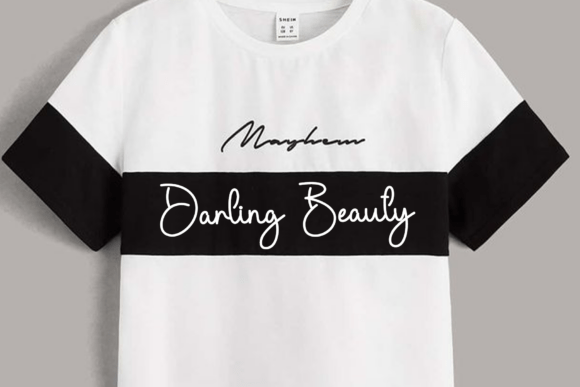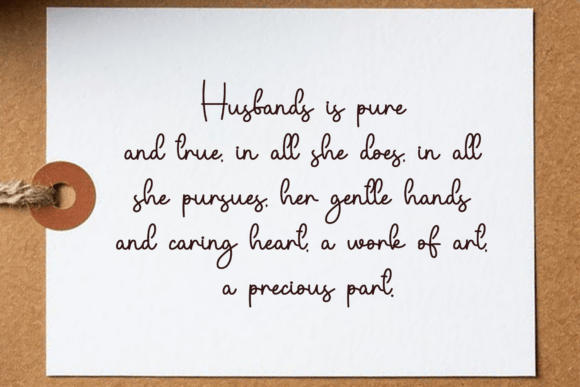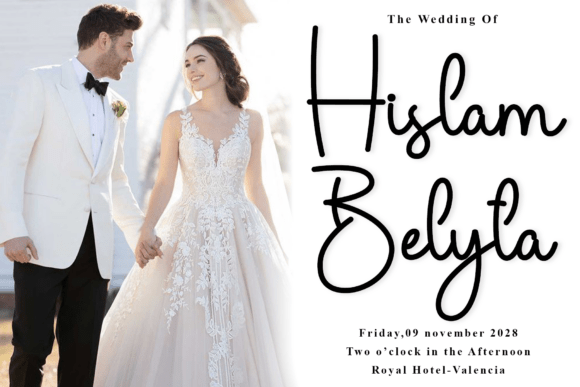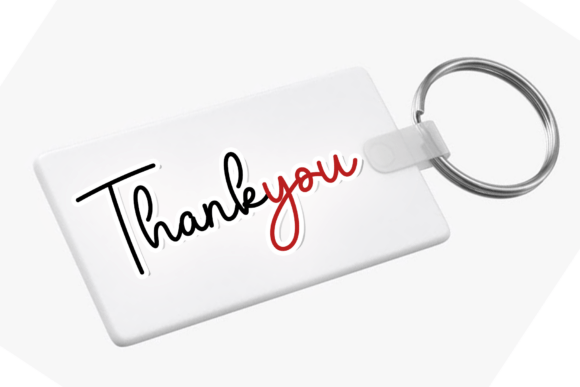
Biscuits Dreams Font: The Perfect Choice for Designers and Crafters
In the world of typography, fonts play a crucial role in conveying messages, expressing emotions, and creating visual identities. For designers and crafters, finding the right font can make all the difference in bringing their creative projects to life. If you’re on the hunt for a font that exudes elegance, whimsy, and a touch of nostalgia, look no further than Biscuits Dreams Font.
What is Biscuits Dreams Font?
Biscuits Dreams is a lovely and timeless handwritten font that has captured the hearts of designers and crafters alike. This beautiful font is characterized by its unique and beautiful touch, which adds a personal and humanizing element to any design. Whether you’re creating eye-catching logos, branding materials, or inspirational quotes, Biscuits Dreams Font is the perfect choice.
Key Features of Biscuits Dreams Font
- Handwritten Elegance: Biscuits Dreams Font boasts a beautiful, handwritten aesthetic that adds a touch of warmth and personality to any design.
- Unique Letterforms: Every letter in the Biscuits Dreams Font has a distinct and beautiful touch, making it perfect for creating one-of-a-kind designs.
- Timeless Appeal: This font’s classic and elegant feel ensures that it will remain a popular choice for years to come.
- Versatility: Biscuits Dreams Font can be used for a wide range of design projects, from logos and branding to quotes and social media graphics.
Why Choose Biscuits Dreams Font?
So, what sets Biscuits Dreams Font apart from other fonts on the market? Here are just a few reasons why designers and crafters love this font:
- Ease of Use: Biscuits Dreams Font is incredibly easy to use, even for those with limited design experience.
- High-Quality Design: The font is meticulously crafted to ensure that every letter and character is of the highest quality.
- Emotional Connection: The font’s handwritten aesthetic creates an emotional connection with the viewer, making it perfect for designs that require a personal touch.
Design Ideas Using Biscuits Dreams Font
Now that you’ve fallen in love with Biscuits Dreams Font, here are some design ideas to get you started:
- Logos and Branding: Use Biscuits Dreams Font to create a unique and memorable logo for your business or brand.
- Inspirational Quotes: Add a touch of elegance and sophistication to your inspirational quotes with Biscuits Dreams Font.
- Social Media Graphics: Create eye-catching social media graphics using Biscuits Dreams Font to engage with your audience.
- Stationery and Invitations: Add a personal touch to your stationery and invitations with this beautiful font.
Tips for Using Biscuits Dreams Font
To get the most out of Biscuits Dreams Font, here are some tips to keep in mind:
- Experiment with Colors: Try pairing Biscuits Dreams Font with different colors to create a unique and eye-catching design.
- Play with Sizes: Experiment with different font sizes to create visual interest and hierarchy in your design.
- Add Decorations: Consider adding decorations, such as flourishes or graphics, to enhance the font’s elegant aesthetic.